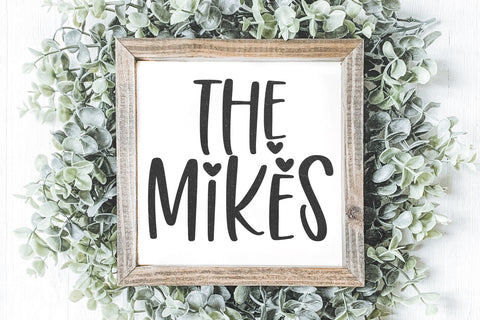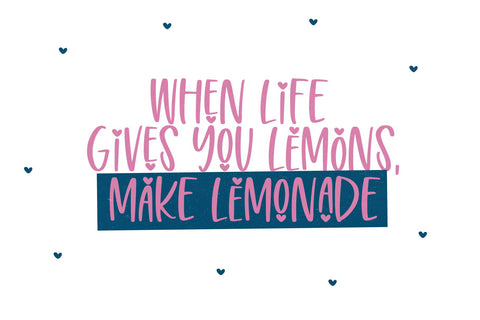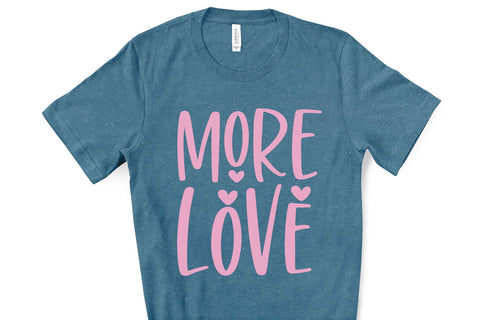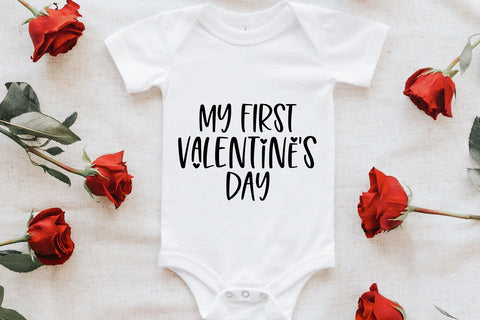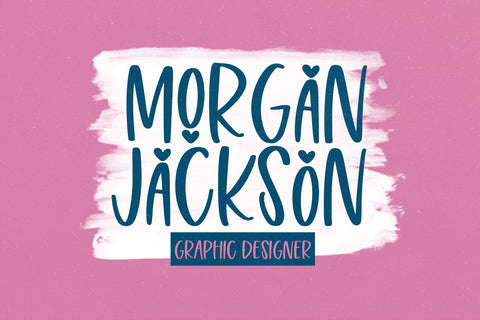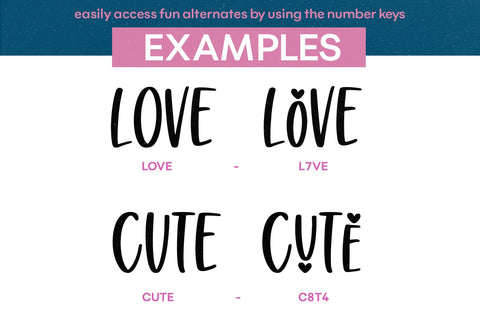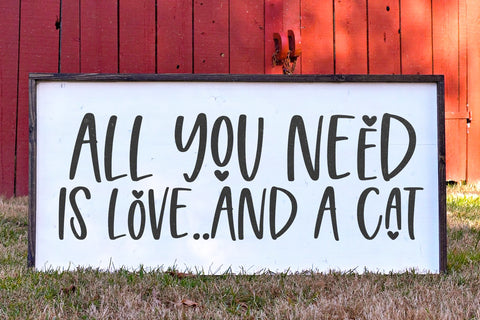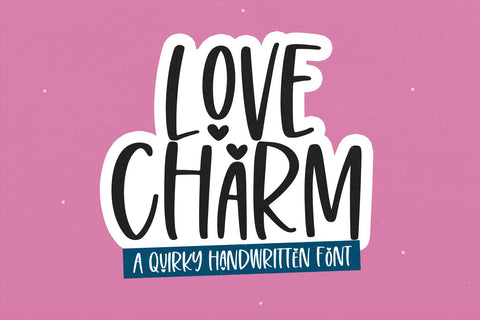
Love Charm - Cute Handwritten Font
Love Charm is a cute handwritten font!
This font is especially perfect for all of your Valentine's Day crafts!  Use this font for shirts, mugs, signs, vinyl and more!